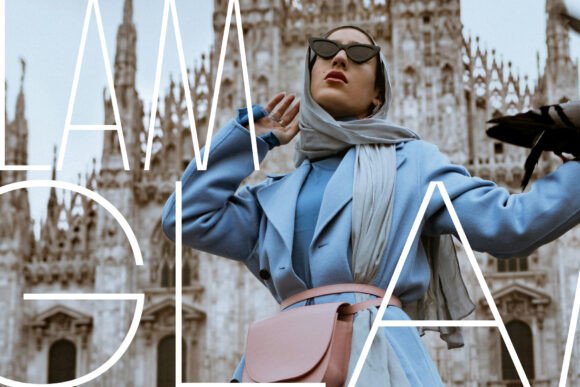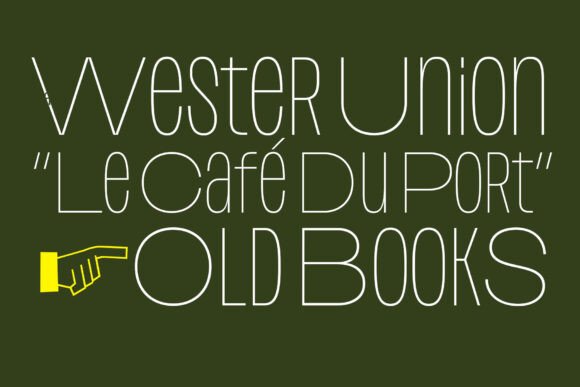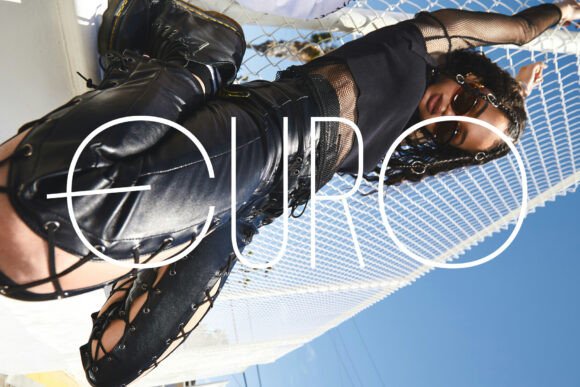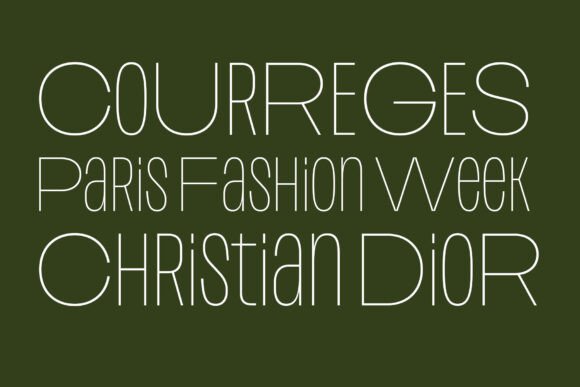
Introduction to Plex Beta Extralight Font Font
Fonts play a crucial role in design, and the Plex Beta Extralight Font font is a typeface that brings both character and versatility to any project. Whether you’re working on a branding project, a website, or a print design, the Plex Beta Extralight Font font offers a unique style that can elevate your work.
PlexBeta Extra Light strikes a perfect balance between refinement and readability.
Slightly heavier than its Thin sibling, it maintains an elegant lightness while improving visibility across mediums Ideal for tech startups, portfolios, and clean product packaging, this font adds a touch of modernity without overwhelming your layout.
Key Features of Plex Beta Extralight Font Font
Why Choose Plex Beta Extralight Font Font?
The Plex Beta Extralight Font font is more than just a typeface – it’s a design tool that helps you communicate your message with style and clarity. Its unique character set and versatile design make it suitable for a wide range of applications, from elegant invitations to bold headlines.
With its carefully crafted letterforms and balanced proportions, the Plex Beta Extralight Font font ensures readability and visual appeal across all mediums.
What makes Plex Beta Extralight Font font special?
The Plex Beta Extralight Font font stands out with its unique design, exceptional readability, and versatility across various design applications.